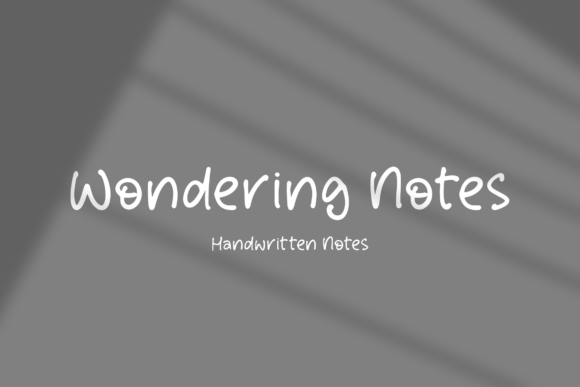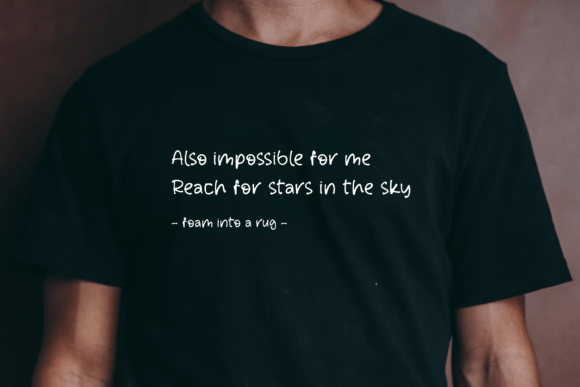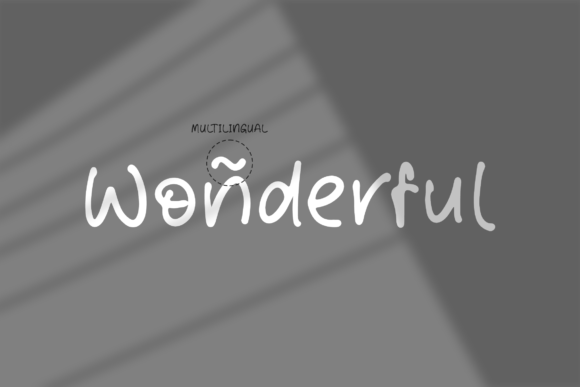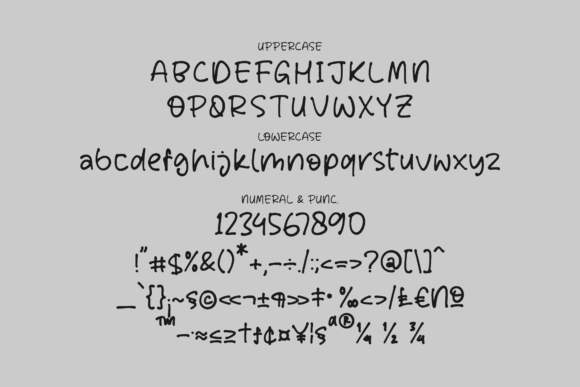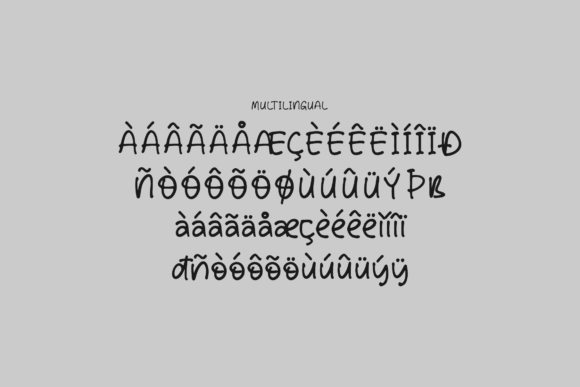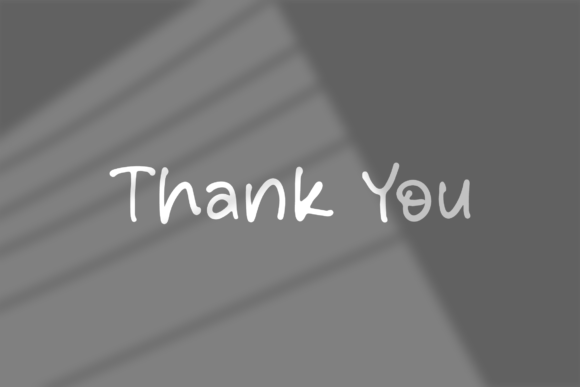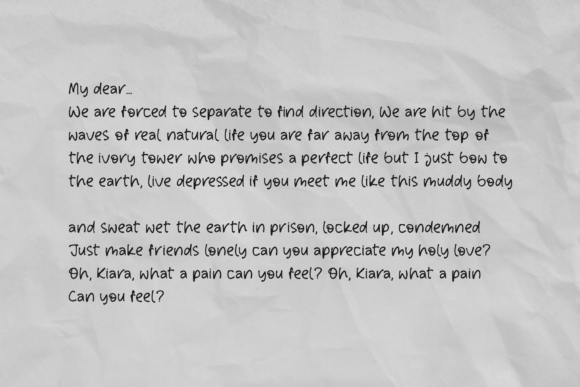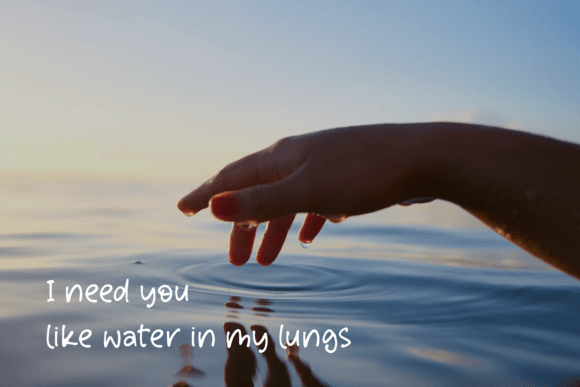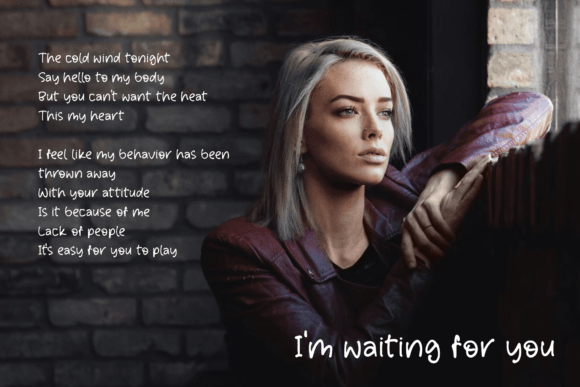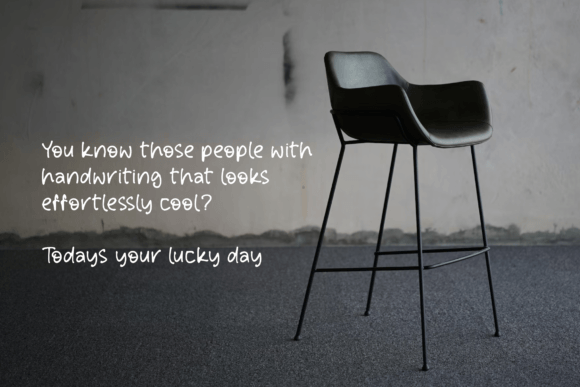
Wondering Notes Font
About Wondering Notes Font
“Wondering Notes – Handwritten Notes” is a versatile and charming font, perfect for a wide range of creative projects. Its handwritten style makes it suitable for numerous applications, including logos, branding, homeware designs, product packaging, mugs, quotes, posters, shopping bags, t-shirts, book covers, name cards, invitation cards, greeting cards, labels, photography watermarks, special events, and any other projects that call for a touch of beautiful script typography.
This font adds a personal and artistic flair to your work, making it ideal for conveying a sense of warmth and authenticity. Its adaptability allows it to seamlessly blend with various design themes and concepts, making it a valuable asset for designers and creators seeking to enhance their projects.
In summary, “Wondering Notes – Handwritten Notes” is more than just a font; it’s a versatile and creative tool that brings a beautiful script taste to your design endeavors. Its handwritten charm and wide range of applications make it an excellent choice for projects of all kinds. Embrace “Wondering Notes” and watch as it elevates your creative projects with its elegant and inviting script style.